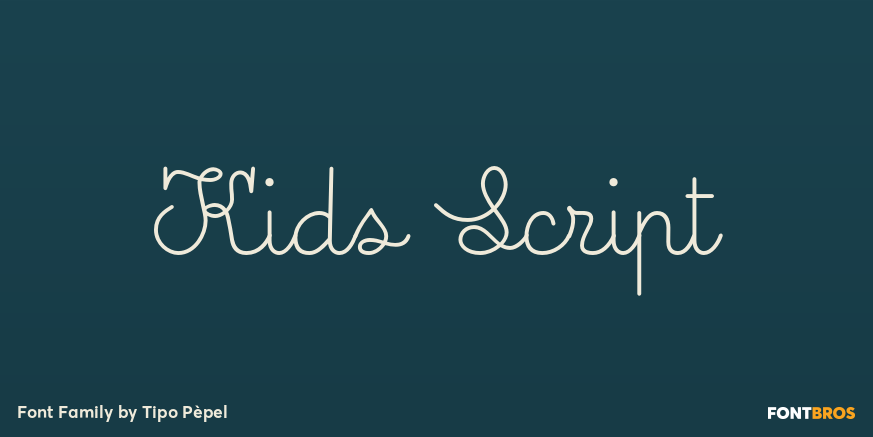
Kids Script
About Kids Script
Kids Script is based on the calligraphic models used in Spanish\’s primary school in the 40\’s. The result is a fresh and naive typography perfect for use in children\’s oriented publishing. Taking advantage of Opentype functions, it\’s possible to get different…